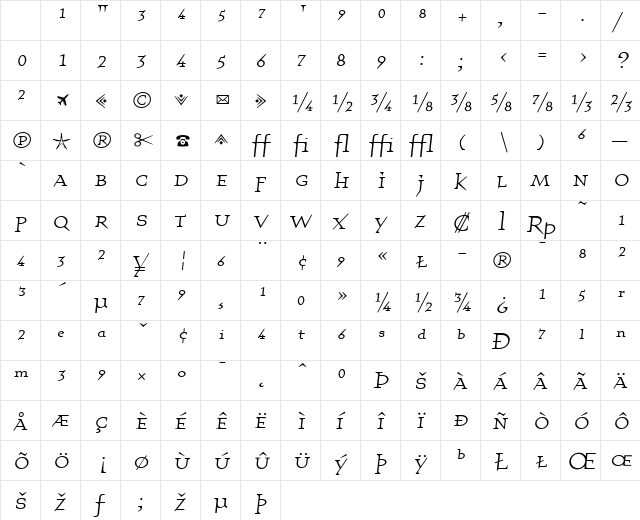
Complete QuartetFractionsRegular Medium glyph index. Displaying only characters natively supported by QuartetFractionsRegular Medium font.
QuartetFractionsRegular is a composed and adaptable typeface that performs quietly and consistently across a wide range of design contexts.